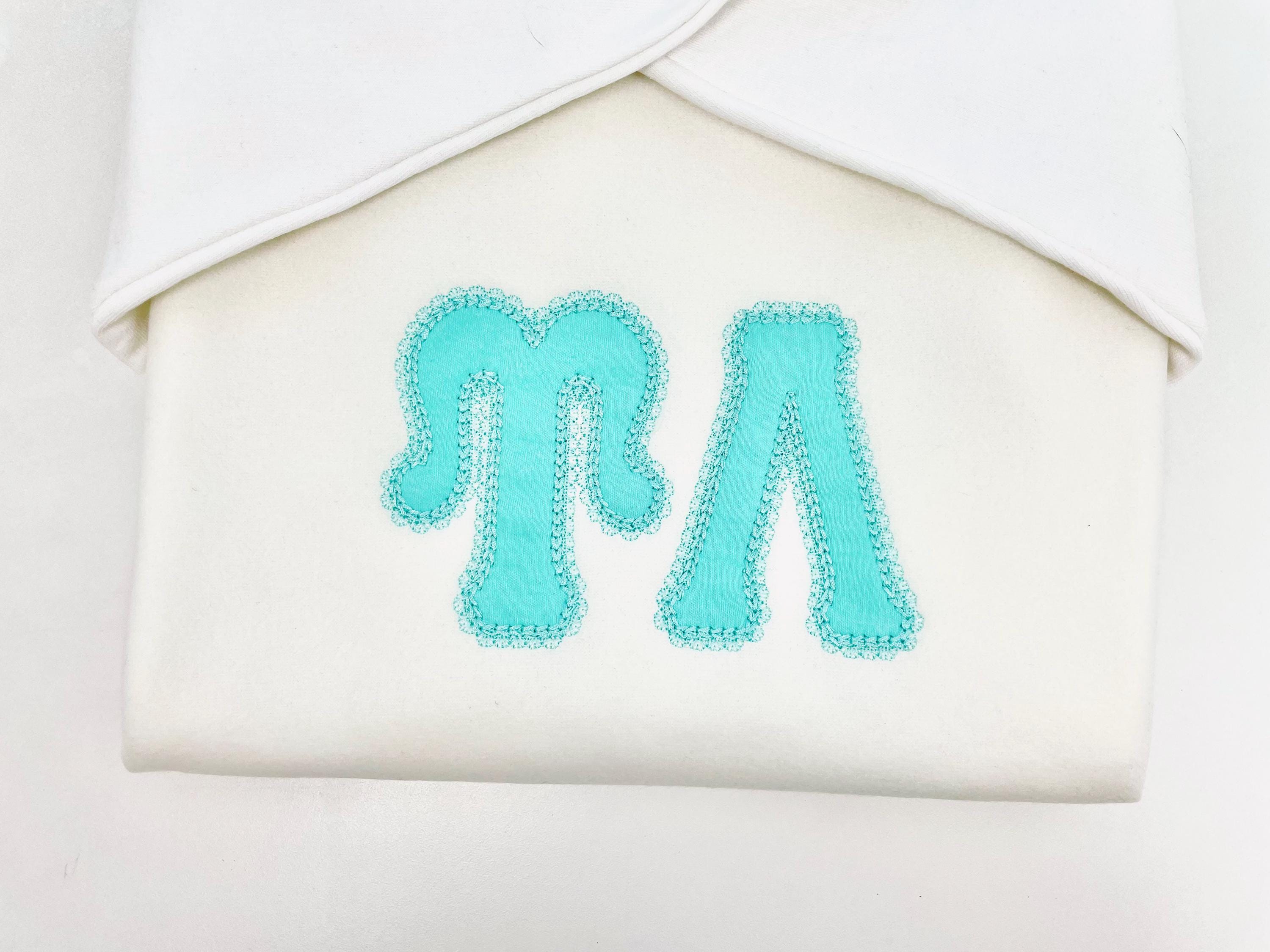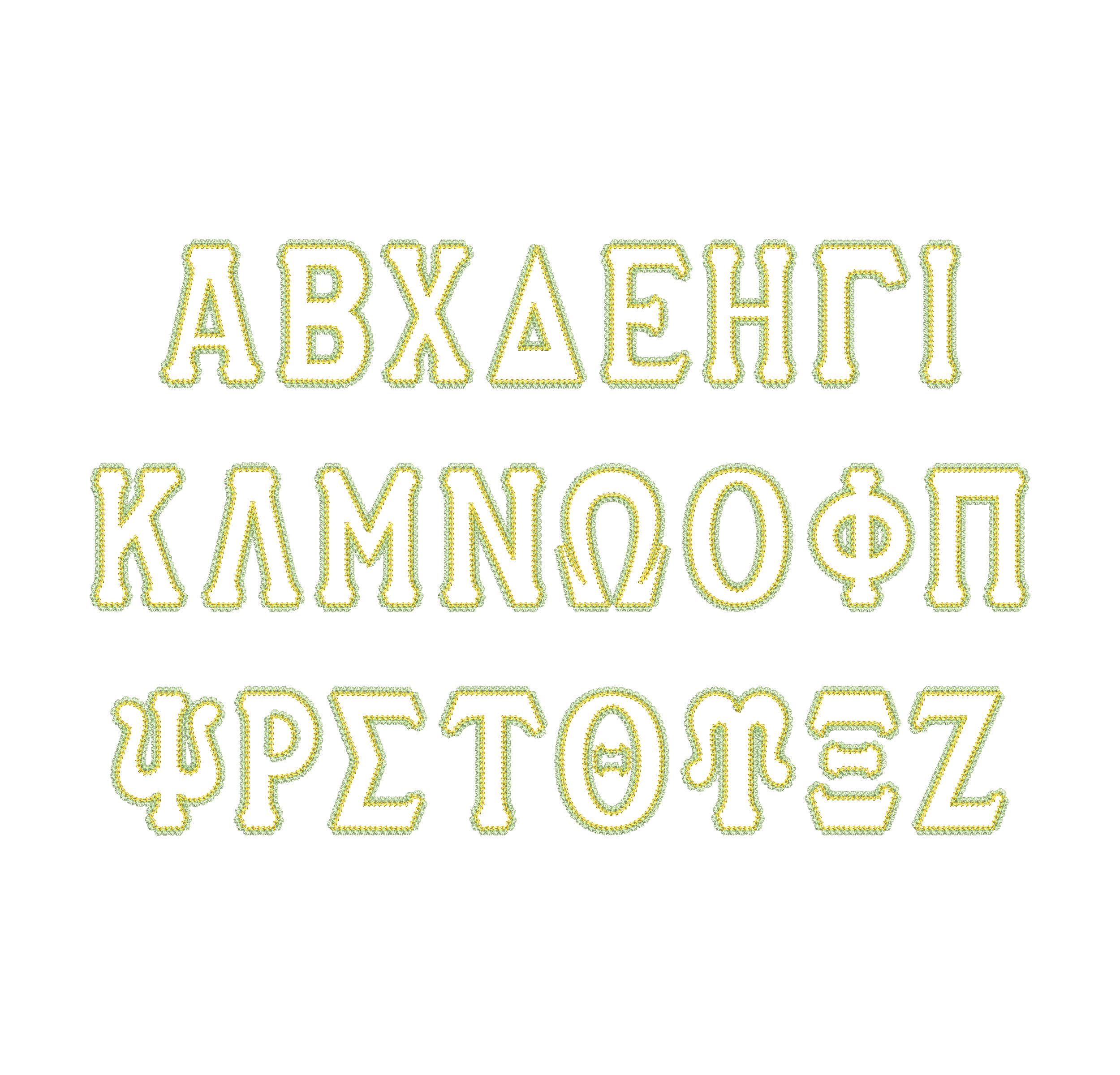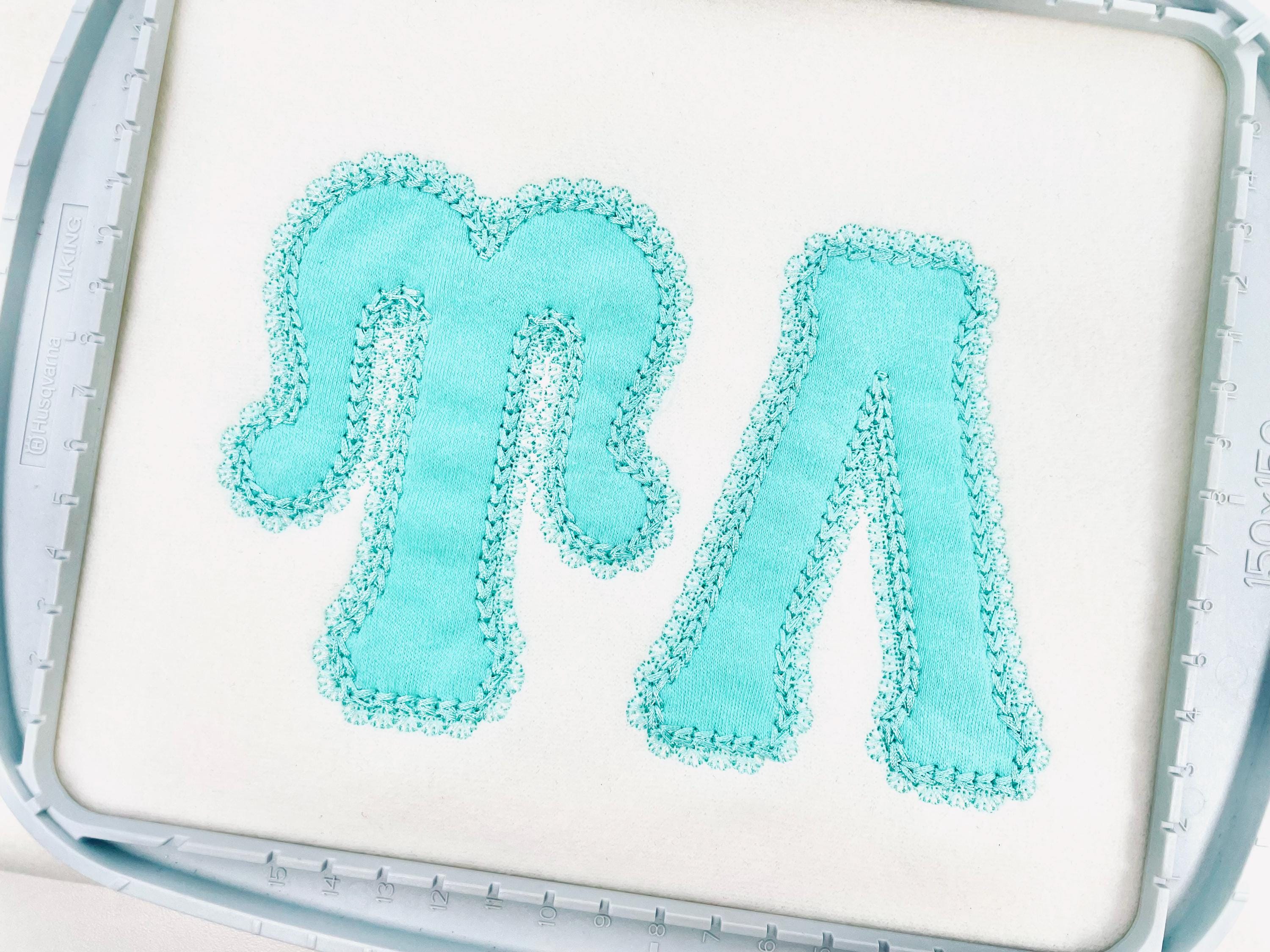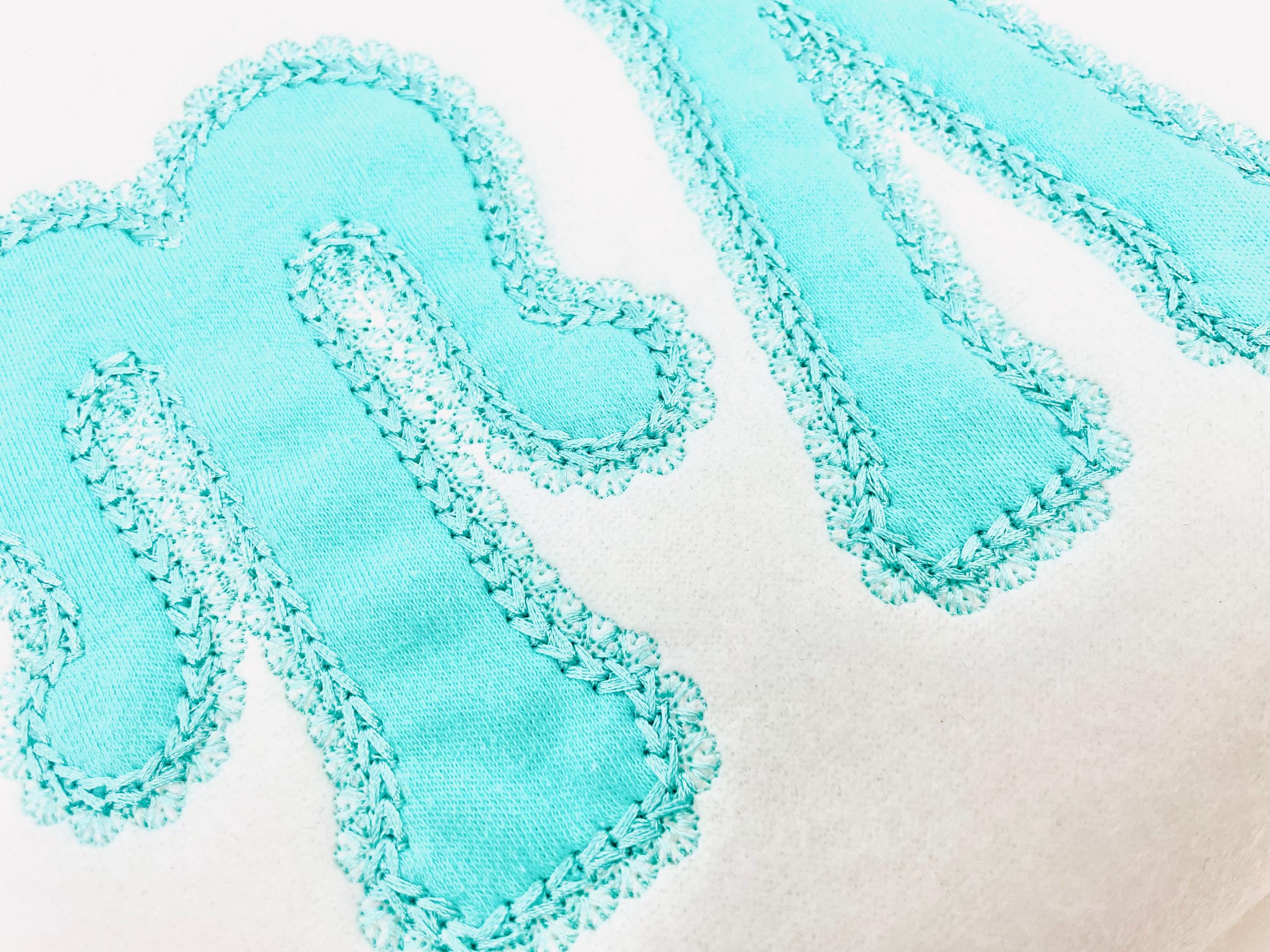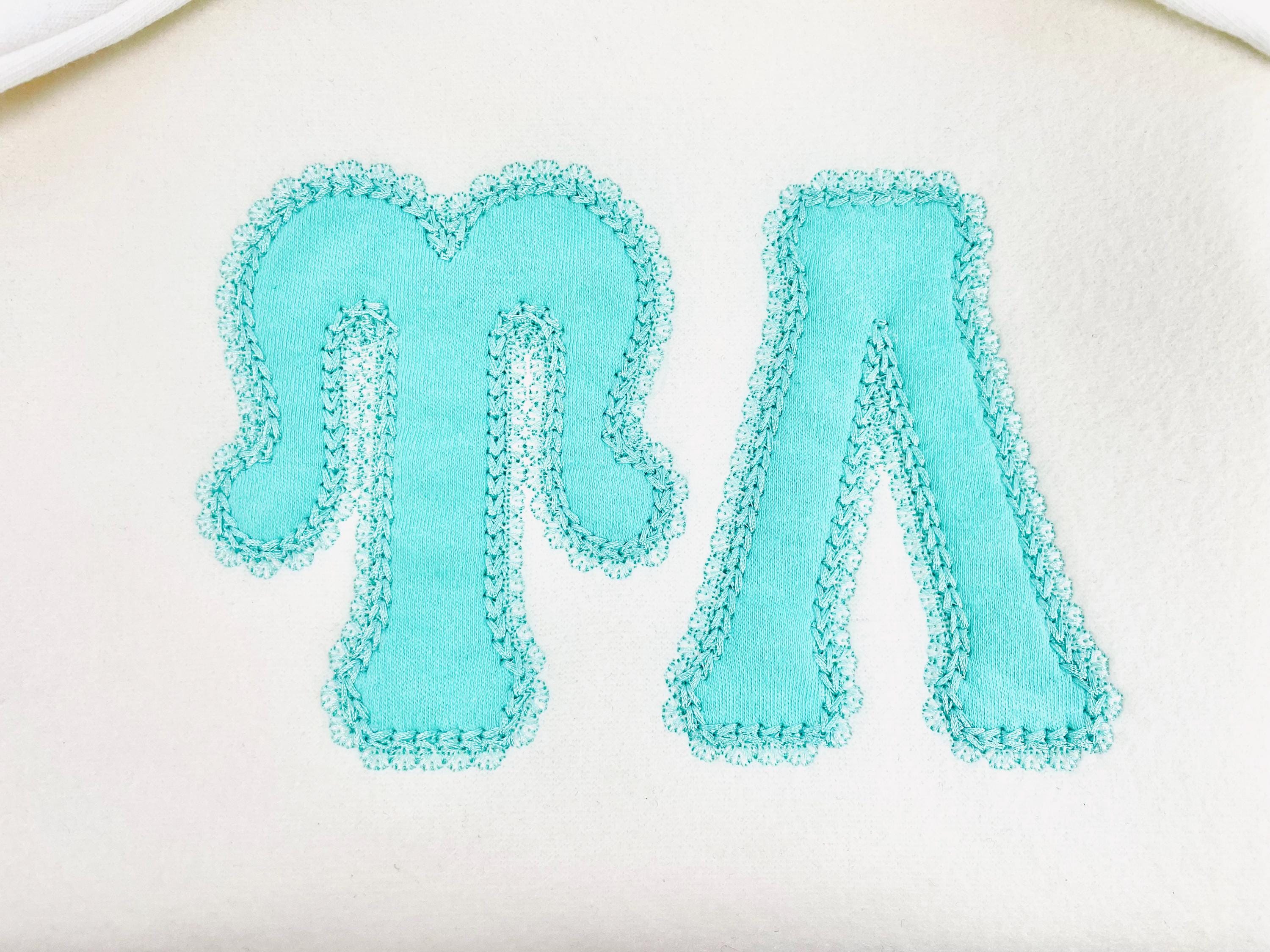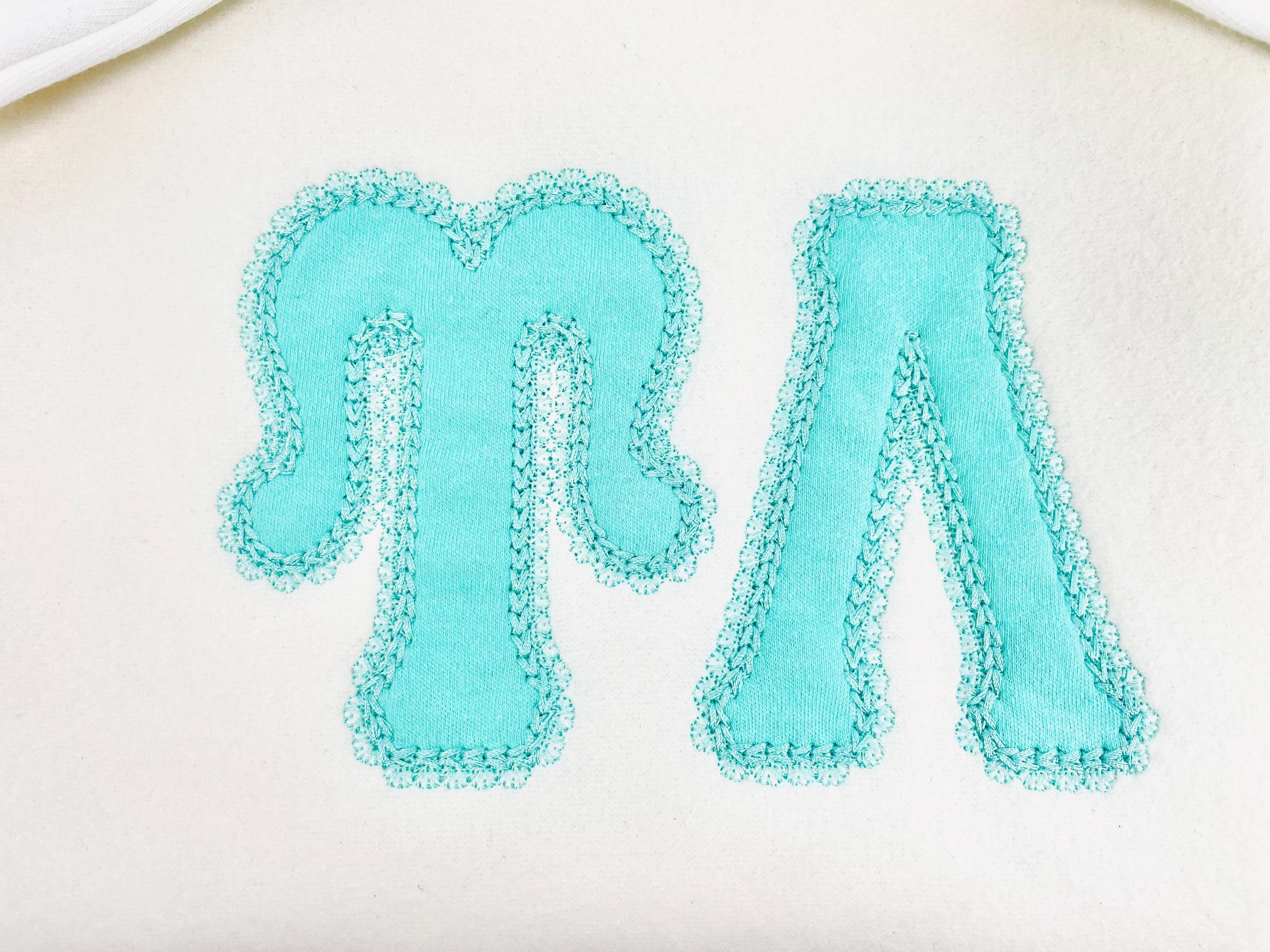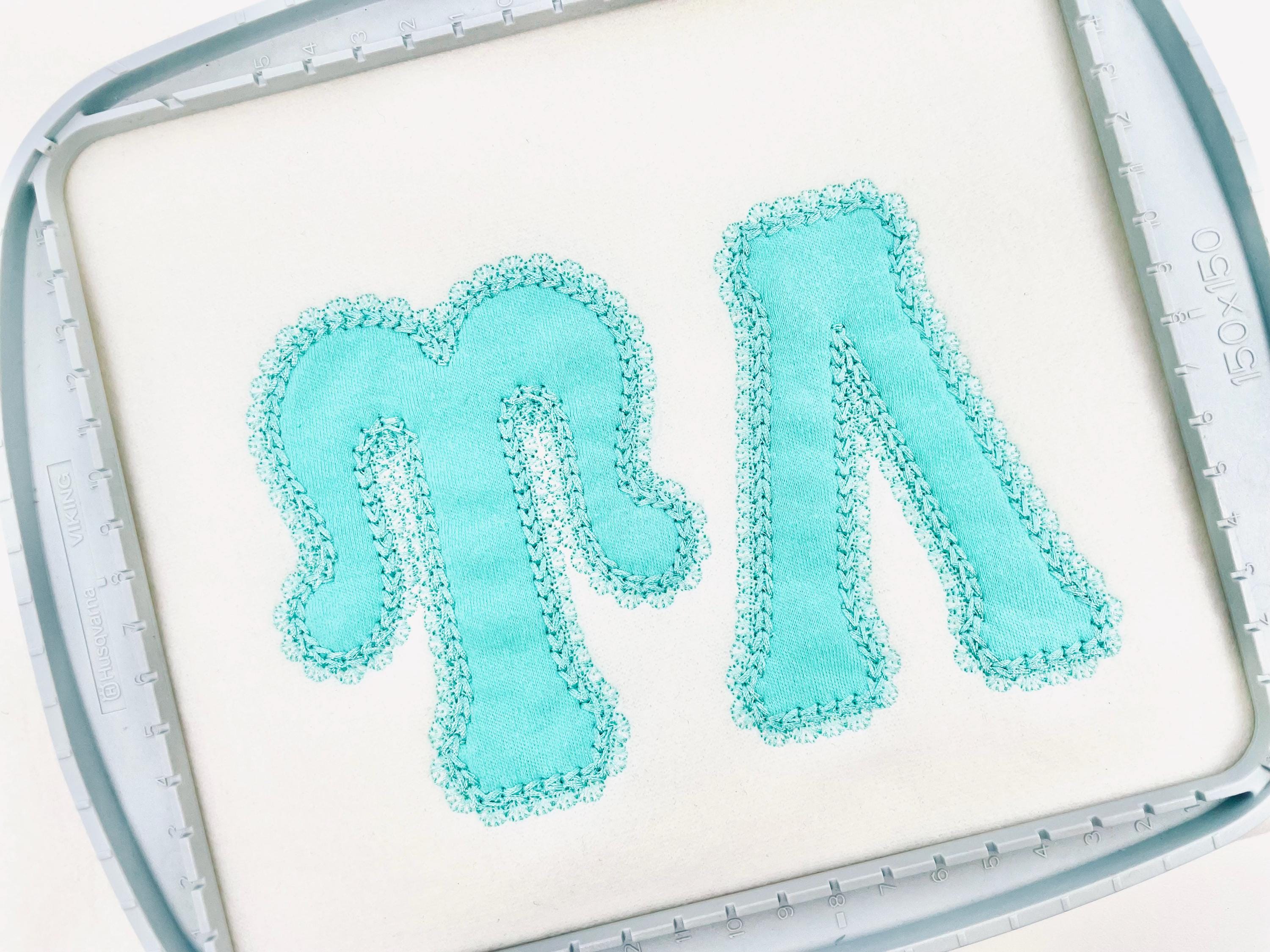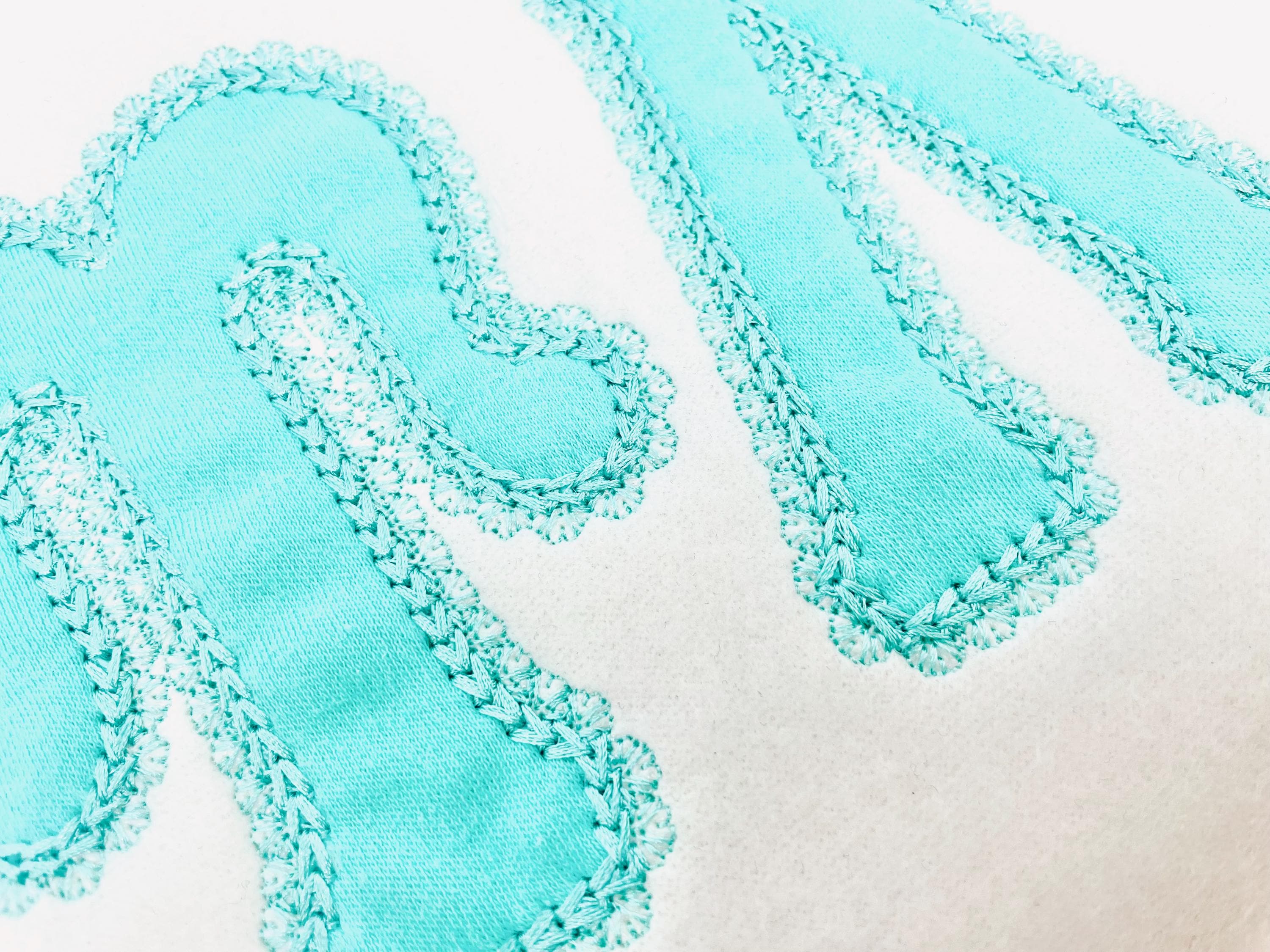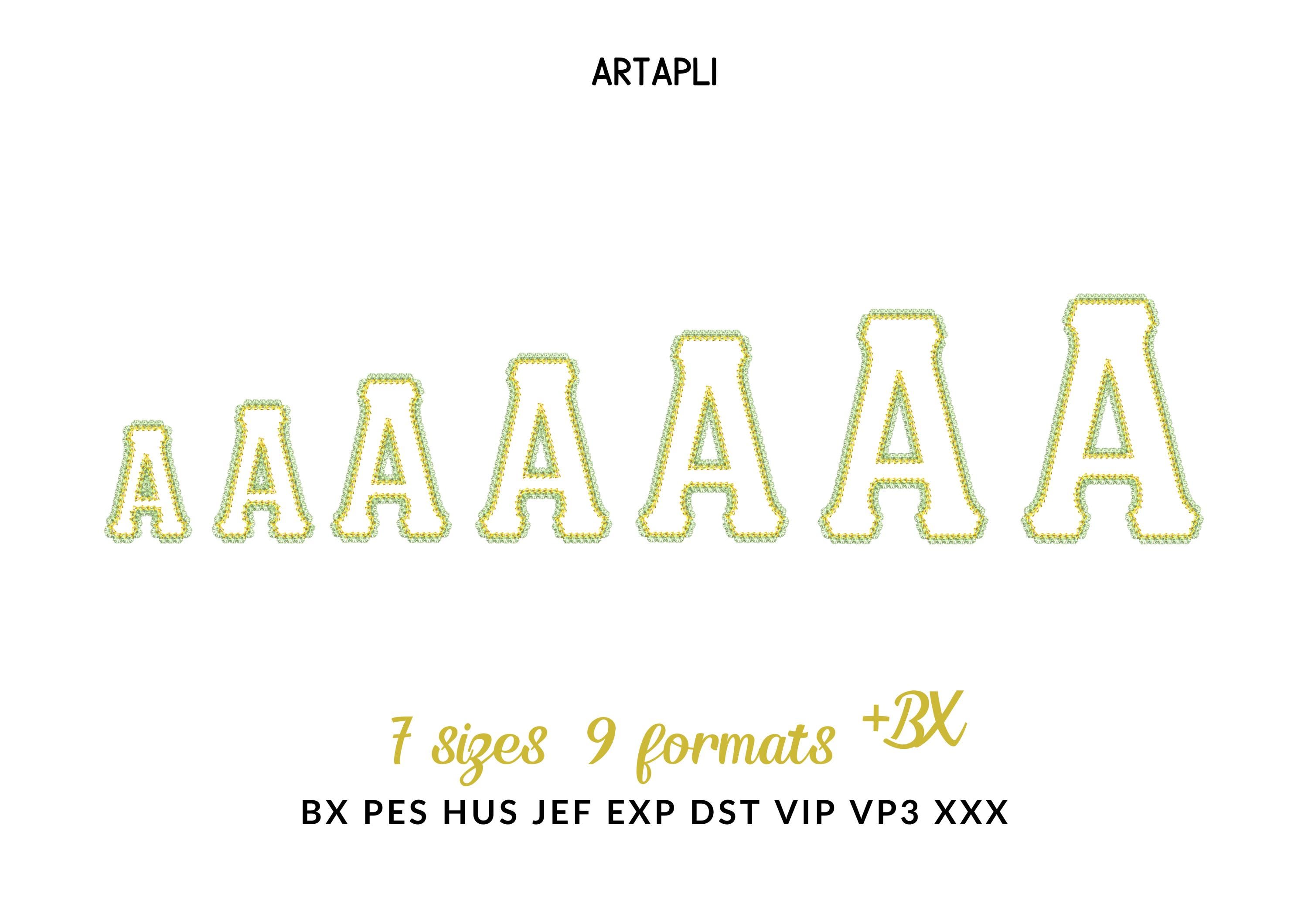
Big Greek FONT Applique lace edge and chain stitch top Monogram sororities fraternities machine embroidery designs sizes 3.2 up to 6.5 inch, and BX
Entire Greek alphabet, 24 letters.
Applique letters with nice decorative lace edge and chain stitch outline.
this is the cutest font